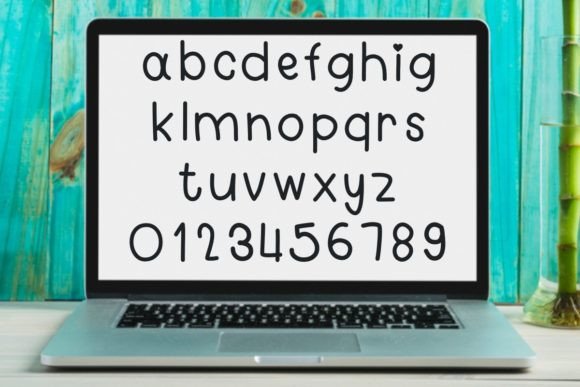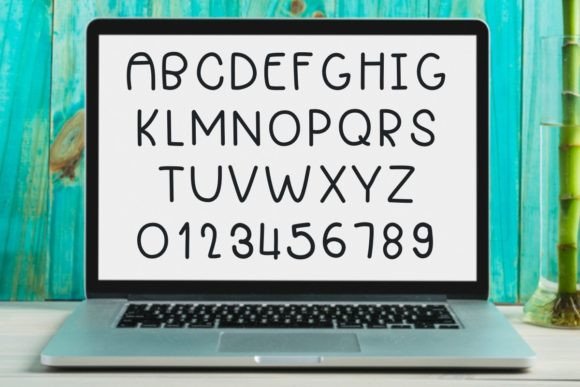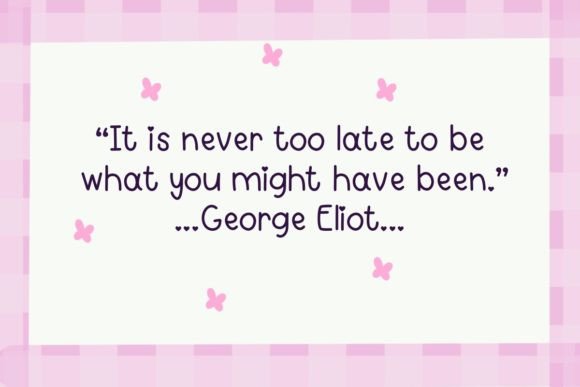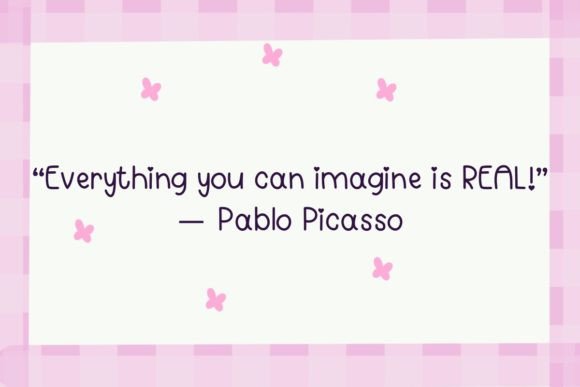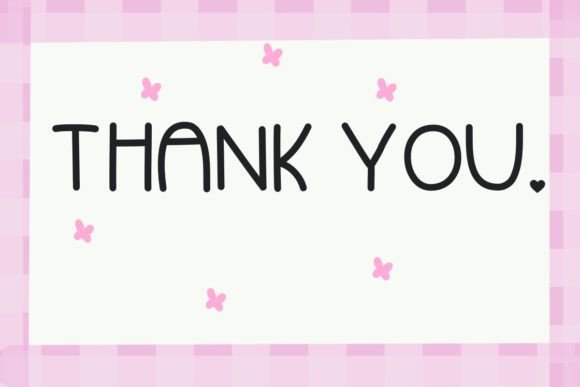
Cute Love Font: The Perfect Addition to Your Design Arsenal
Are you a designer, crafter, or digital artist looking for a font that can add a touch of personality and whimsy to your projects? Look no further than the Cute Love Font! This simple yet adorable handwritten font is designed to bring a friendly feel to a wide range of contexts, making it incredibly versatile and fun to use.
What is Cute Love Font?
Cute Love Font is a modern, handwritten font that exudes a sense of playfulness and charm. Its clean lines, rounded edges, and gentle curves make it a perfect choice for anyone looking to add a personal touch to their designs. Whether you’re creating digital content, crafting handmade cards, or designing presentations, this font is sure to delight.
Key Features of Cute Love Font
- Simple and Cute: The Cute Love Font boasts a straightforward yet adorable design that is sure to capture the hearts of your audience.
- Handwritten Style: With its handwritten feel, this font adds a personal and human touch to any project, making it perfect for crafts, journals, and other creative endeavors.
- Flexible and Versatile: The friendly feel of the Cute Love Font makes it incredibly flexible, allowing it to fit seamlessly into a wide range of contexts and applications.
- Trendy and Modern: Stay on-trend with this modern font that is perfect for digital designers and crafters looking to create fresh and contemporary content.
Endless Variations and Creative Possibilities
One of the best things about the Cute Love Font is its endless variations and creative possibilities. Whether you’re looking to create bold statements or subtle accents, this font can be used in a multitude of ways to bring your vision to life. Experiment with different sizes, colors, and textures to create unique and eye-catching designs that reflect your personal style.
Cute Love Font is a perfect addition to any designer’s or crafter’s toolkit. Its friendly and approachable feel makes it ideal for a wide range of projects, including:
- Digital Designing: Use the Cute Love Font to add a personal touch to your digital content, including social media graphics, blog posts, and website headers.
- Crafting: Add a touch of whimsy to your handmade cards, journals, and other craft projects with this adorable font.
- Presentations: Make your presentations stand out with the Cute Love Font, perfect for titles, headings, and body text.
Tips for Using Cute Love Font
To get the most out of the Cute Love Font, here are a few tips to keep in mind:
- Experiment with Colors: Try pairing the Cute Love Font with different colors and textures to create unique and eye-catching designs.
- Play with Sizes: Use the Cute Love Font in a range of sizes to create visual interest and hierarchy in your designs.
- Mix and Match: Combine the Cute Love Font with other fonts and design elements to create fresh and interesting combinations.
| Font Name | Cute Love Font |
| Author | Foam-Design Store |